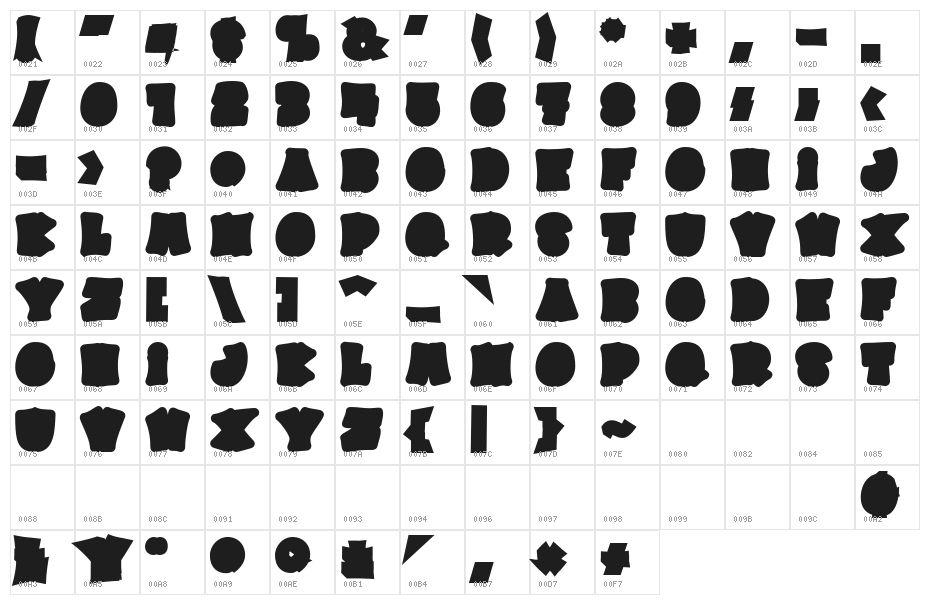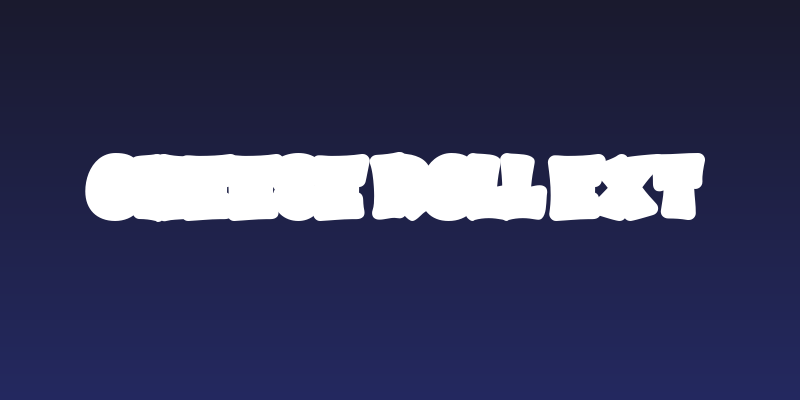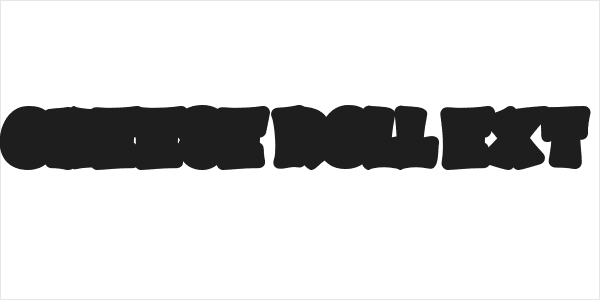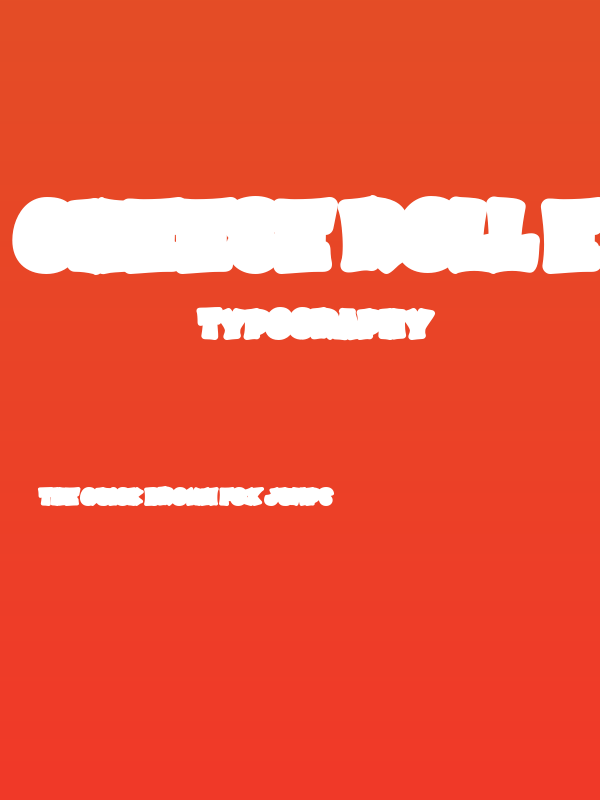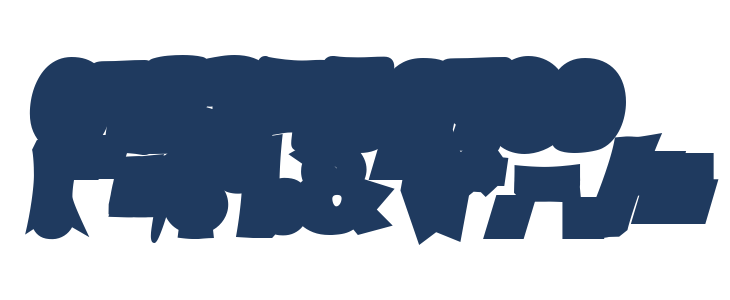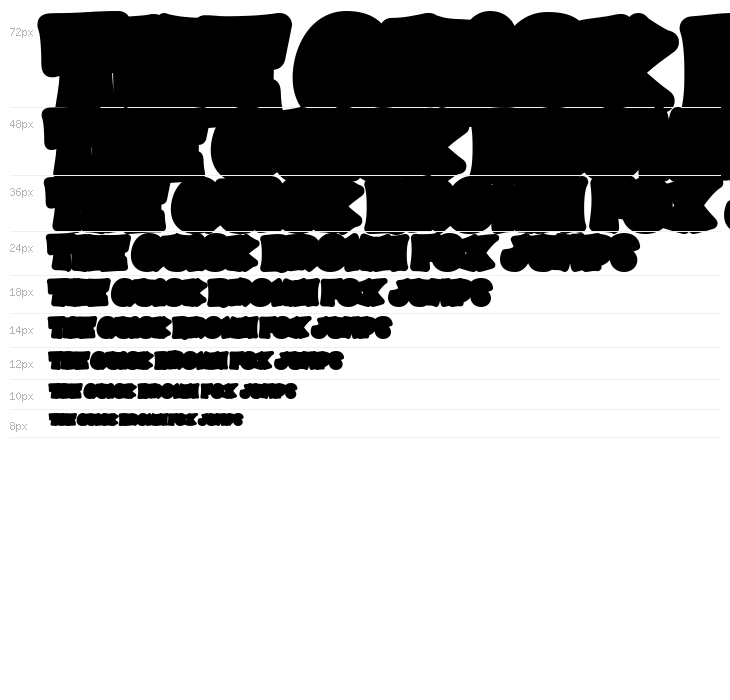
CHEESE ROLL EXT Font
CHEESE ROLL EXT Description
This font features a bold and playful style with exaggerated, rounded shapes that give it a cartoonish and fun appearance. The letters are heavily weighted, creating a strong visual impact. Each character is distinct with a slightly irregular outline, adding to its whimsical charm. The overall design is reminiscent of hand-drawn or graffiti-like lettering, making it ideal for creative and informal projects. The font's thick strokes and lack of sharp edges contribute to its friendly and approachable feel, making it suitable for a variety of playful and artistic applications.
| Overall Style | Playful, Cartoonish, Whimsical |
| Proposed Projects | Ideal for children's books, comic strips, playful branding, posters, and party invitations. |